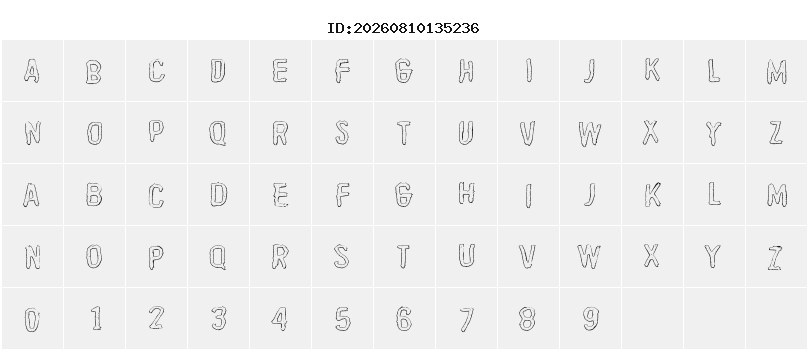
Quicksand x Preview
• Font Name: Quicksand x
• Font ID: Quicksand x:Version 1.00
• Full Font Name: Quicksand x
• Version: Version 1.00 November 4, 2015, initial release
• PostScript Name: Quicksandx
• Character Count: 236
About Quicksand x.ttf
Quicksand x.ttf is a modern, elegant sans-serif font designed for ultimate readability and visual harmony. Perfect for branding, headlines, web design, and print materials.